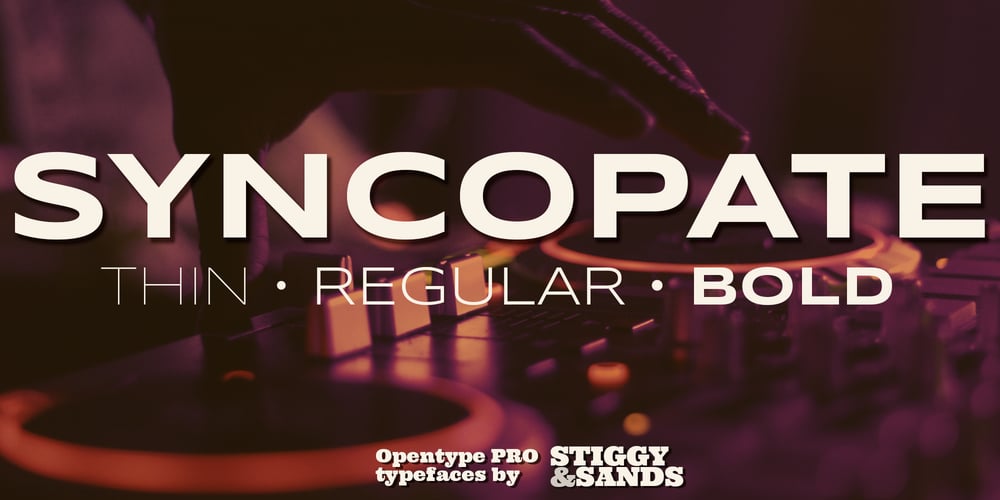
Syncopate Pro
Syncopate Pro font
Syncopate Pro Font Family was designed by Jim Lyles, Brian J. Bonislawsky and published by Stiggy & Sands. Syncopate Pro contains 3 styles and family package options. The Syncopate Pro Family is a unicase design where the traditional lowercase x-height has been abandoned and a single uppercase height rules the design of all of the alpha and numeric glyphs. Some uppercase glyphs are copied to their lowercase slots, where other lowercase glyphs such as the a, e, and r, are scaled up to uppercase heights. This motif allows for a vast array of typesetting possibilities. A modern and stylish sans inspired by the many trendy sans serif typefaces that are prevalent today, the Syncopate Pro Family, primarily intended for display and headline use, also works well for limited text runs. The thin and regular weights and wide body impart a certain level of elegance, while the unicase approach keeps the look lively and fresh. The bold weight imparts a powerful substantiality, lending a strong corporate presence to any design. Opentype features include: – Stylistic Alternates for a collection of alternate Small Caps – Full set of Inferiors and Superiors for limitless fractions – Lining and Proportional figure sets